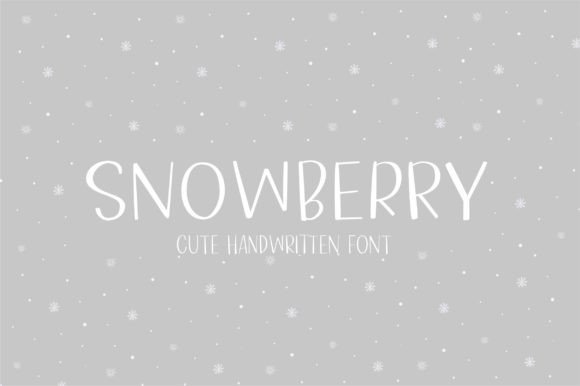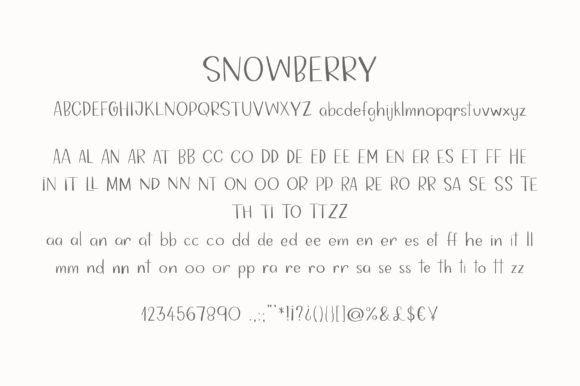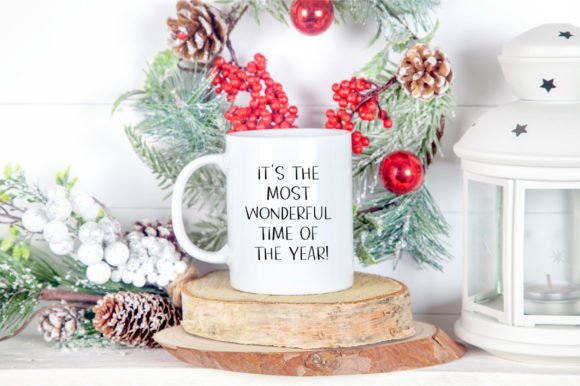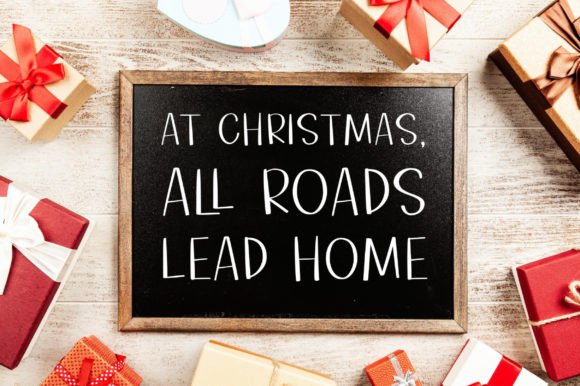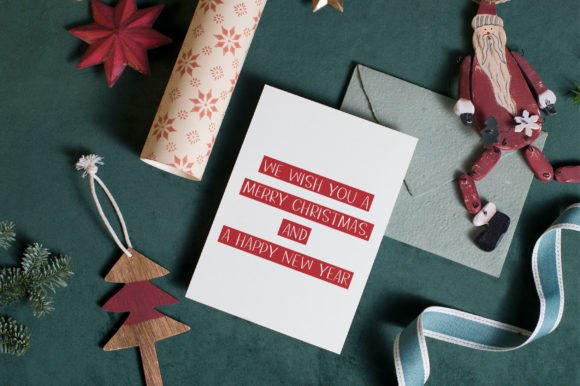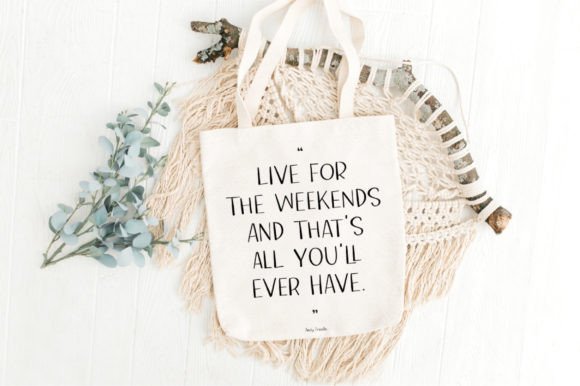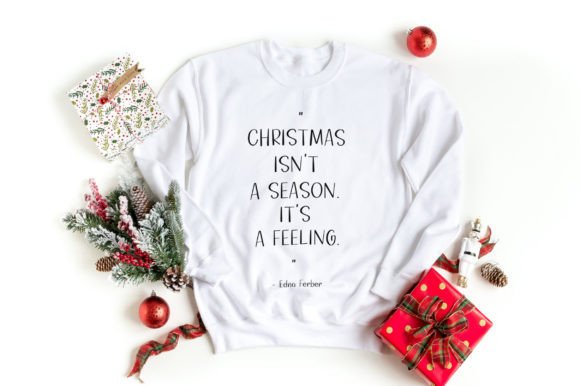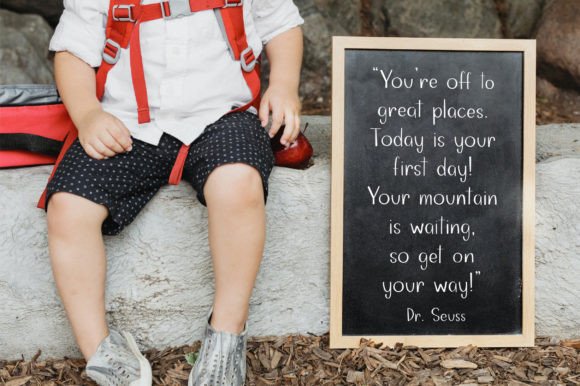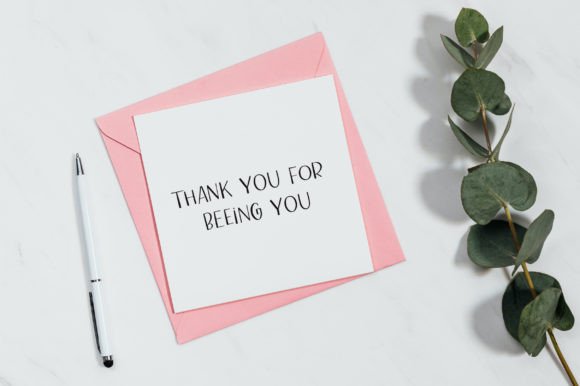
Snowberry Font
About Snowberry Font
Meet Snowberry font, a crafty and fun handwritten typeface designed to bring warmth, personality, and charm to your creative projects. Its cute and friendly style makes it a perfect choice for a variety of design needs, from invitations to social media posts, t-shirts, logos, and print designs.
Crafty and Fun Handwritten Style
Snowberry font is characterized by its playful and casual handwritten look. Its natural curves and handwritten ligatures create an authentic feel, as if each letter was carefully penned by hand. This adds a personal and approachable touch to your designs, making them instantly engaging and visually appealing.
Versatile Uses of Snowberry Font
This font’s versatility allows it to fit beautifully into many types of projects, such as:
• Invitations: Perfect for birthdays, baby showers, weddings, and other special events where you want to add a heartfelt and joyful vibe.
• Social Media: Use Snowberry font to create friendly and eye-catching posts, stories, and banners that capture your audience’s attention.
• T-Shirts and Apparel: The font’s playful style works great on apparel designs, giving clothing a unique and trendy look.
• Logos and Branding: Add a cute and approachable personality to your brand identity with Snowberry’s handwritten charm.
• Print Designs: Whether for posters, flyers, or product packaging, this font enhances your print projects with a warm and friendly tone.
Features and Ligatures
Snowberry font includes a set of ligatures that enhance its handwritten appearance, offering smooth transitions between letters and a polished, professional look. These details help you create fluid and visually pleasing typography, adding a subtle sophistication to the font’s fun nature.
Why Choose Snowberry Font?
Choosing Snowberry means bringing a delightful and cheerful vibe to your design work. The font is easy to read yet playful, ensuring that your message connects emotionally with viewers. Whether you are a professional designer or a hobbyist, Snowberry offers an excellent balance between style and usability.
Tips for Using Snowberry Font
• Pair Snowberry with clean sans-serif fonts for balanced and modern designs.
• Use the ligatures and alternate characters to give your text a natural, handwritten flow.
• Apply bright and pastel colors to enhance the font’s friendly and cute character.
• Combine Snowberry with playful illustrations or decorative elements for invitations and branding.